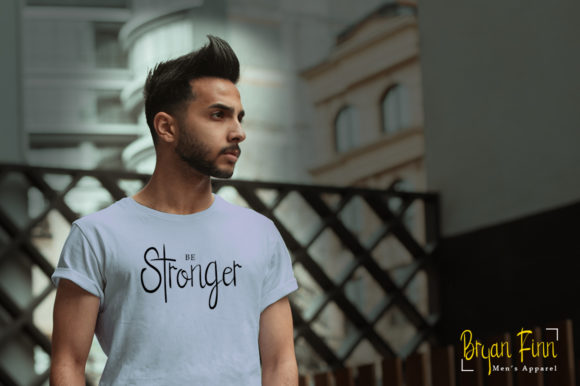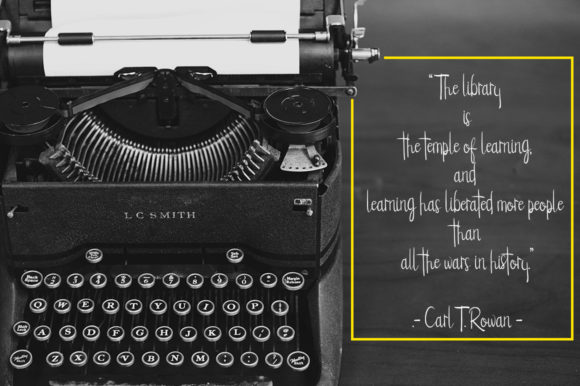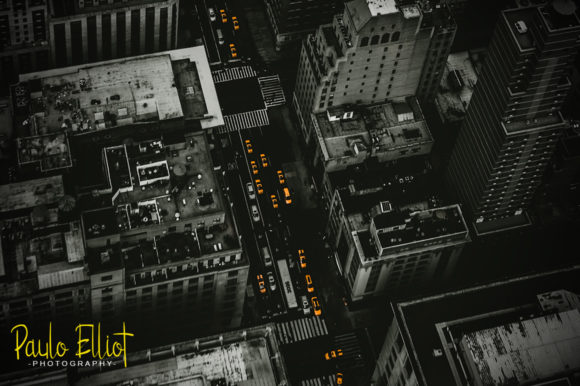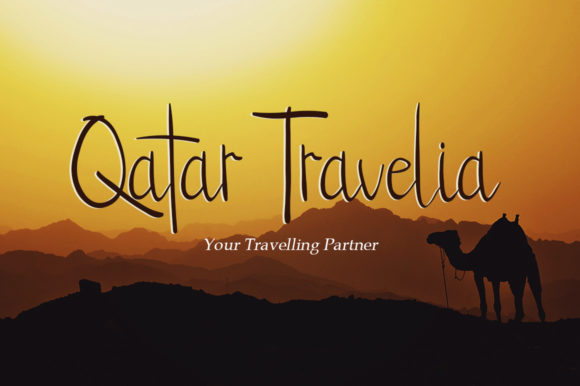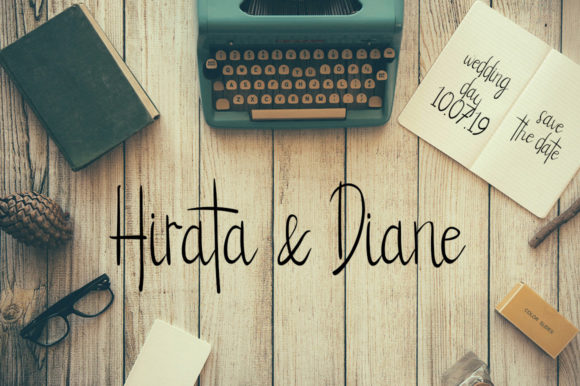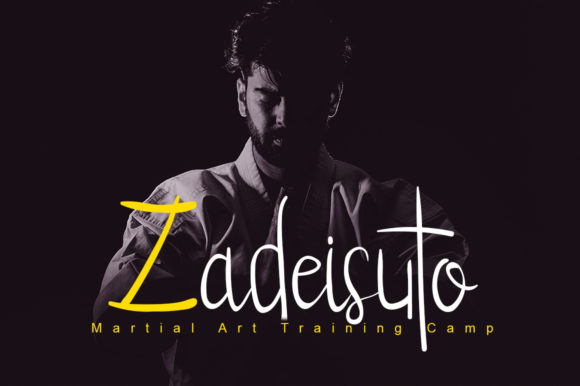
The Designer’s Delight: Alexandrea Font
I’ll never forget the time I was working on a project for a client who wanted a personal, handmade touch. I spent hours scrolling through font libraries, searching for the perfect handwritten font. That’s when I stumbled upon Alexandrea, a beautiful and sweet handwritten font with an authentic feel. It was love at first sight! 💕
As I worked with Alexandrea, I realized that it was more than just a font – it was a game-changer. It effortlessly added a personal touch to my project, making it stand out from the rest. In this article, I’ll share my experience with Alexandrea, its features, and how to make the most of it in your creative projects.
- ✨ Authentic handwritten feel that adds a personal touch to any project
- ✅ Elegant and cursive script that’s perfect for creative projects
- 💫 Highly legible, even at small font sizes
- 🎨 Versatile and pairs well with a variety of fonts and design styles
While Alexandrea is an amazing font, there are a few things to keep in mind:
- 🤔 Some letters have slight variations in width, which can make it challenging to use in certain design contexts
- ⚠️ Not ideal for body text, as it’s best suited for headings and titles
Alexandrea was designed with the intention of creating a font that felt authentic and handmade. The designer wanted to capture the essence of handwritten script, with all its imperfections and quirks. The result is a font that feels personal, elegant, and versatile.
Q: What type of projects is Alexandrea best suited for?
A: Alexandrea is perfect for creative projects that require a personal touch, such as branding, packaging, and advertising.
Q: Is Alexandrea a difficult font to read?
A: No, Alexandrea is highly legible, even at small font sizes. However, it’s best suited for headings and titles, rather than body text.
Q: Can I use Alexandrea with other fonts?
A: Yes, Alexandrea pairs well with a variety of fonts and design styles. Experiment with different combinations to find the perfect match for your project.